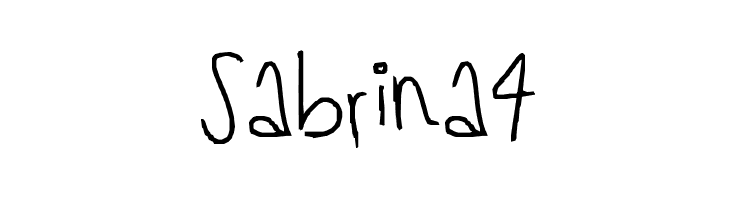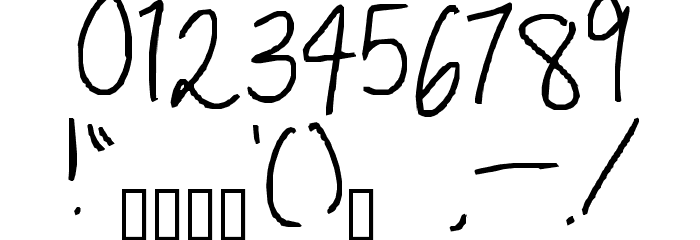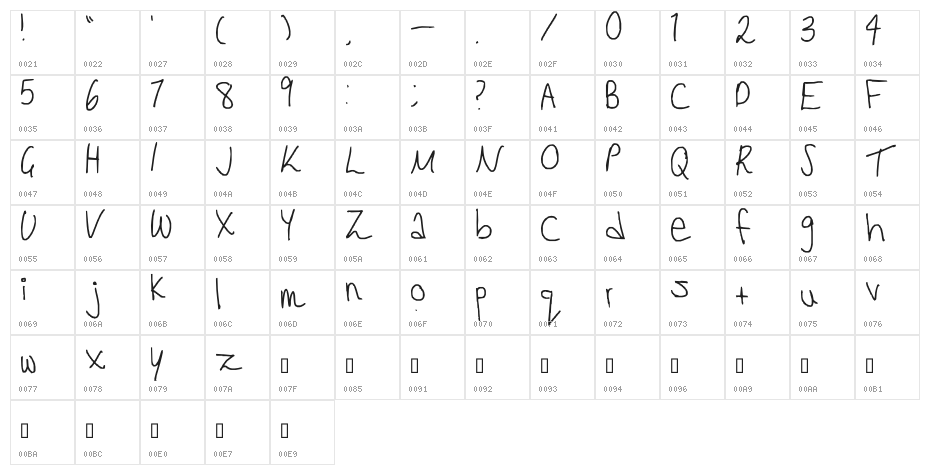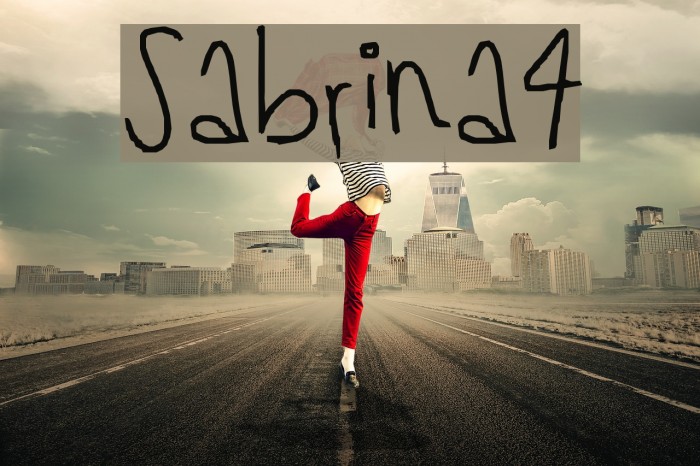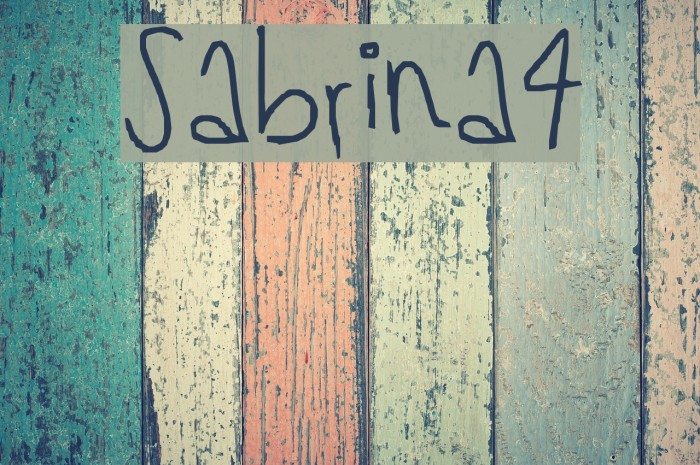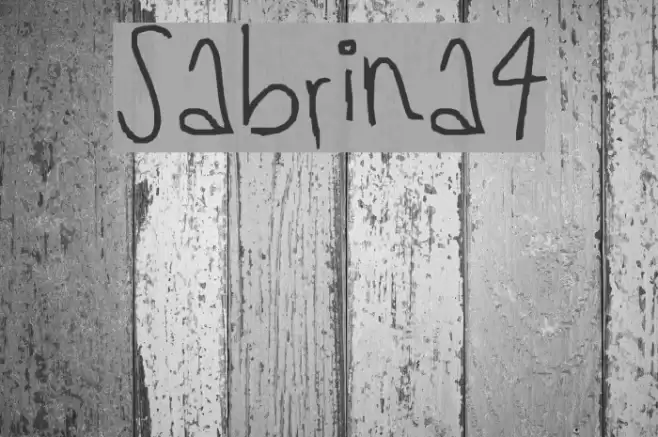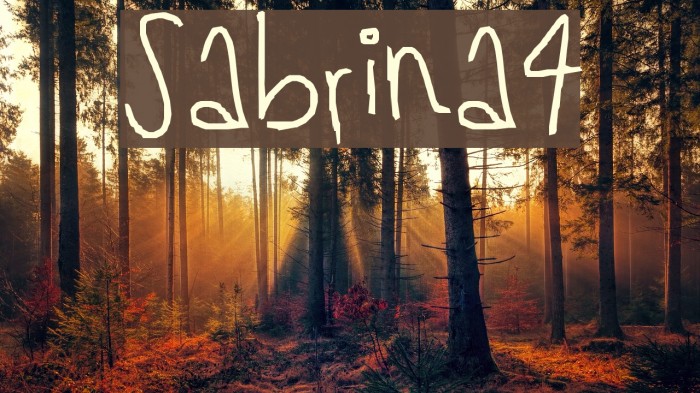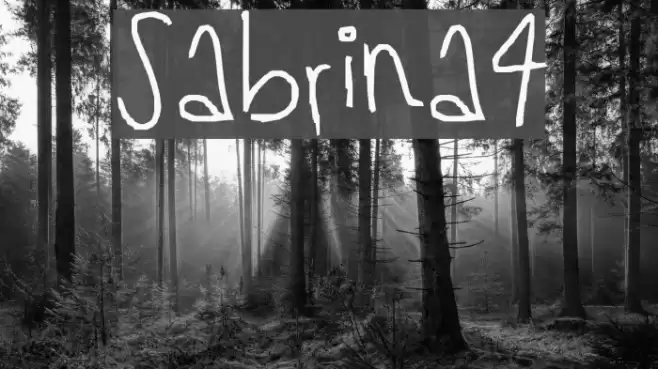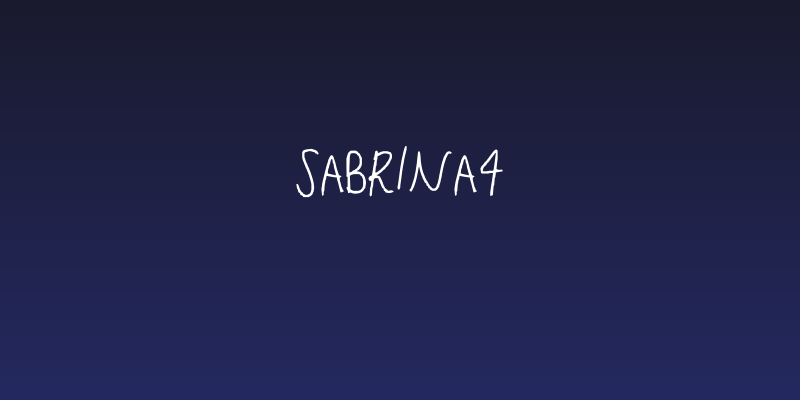
Sabrina4 Font
Sabrina4 Description
This font features a casual, handwritten style with a playful and informal appearance. The letters are unevenly sized and spaced, giving it a natural, organic feel. The strokes are slightly irregular, mimicking the flow of handwriting with a marker or pen. The uppercase and lowercase letters maintain a consistent style, with rounded edges and a slight slant, adding to its approachable and friendly character. The numerals and special characters follow the same aesthetic, ensuring uniformity across all glyphs. This font is ideal for projects that require a personal touch or a relaxed, informal vibe.